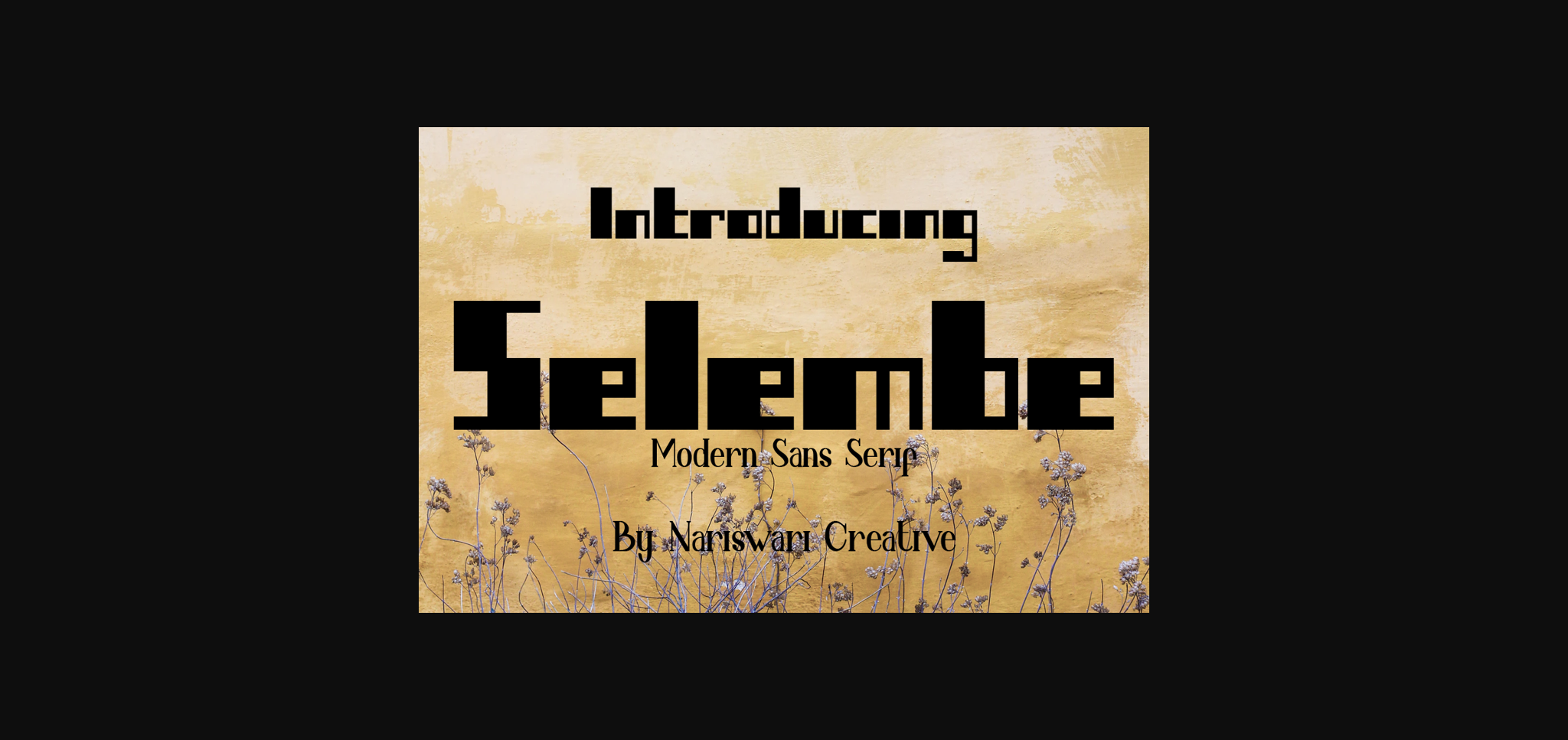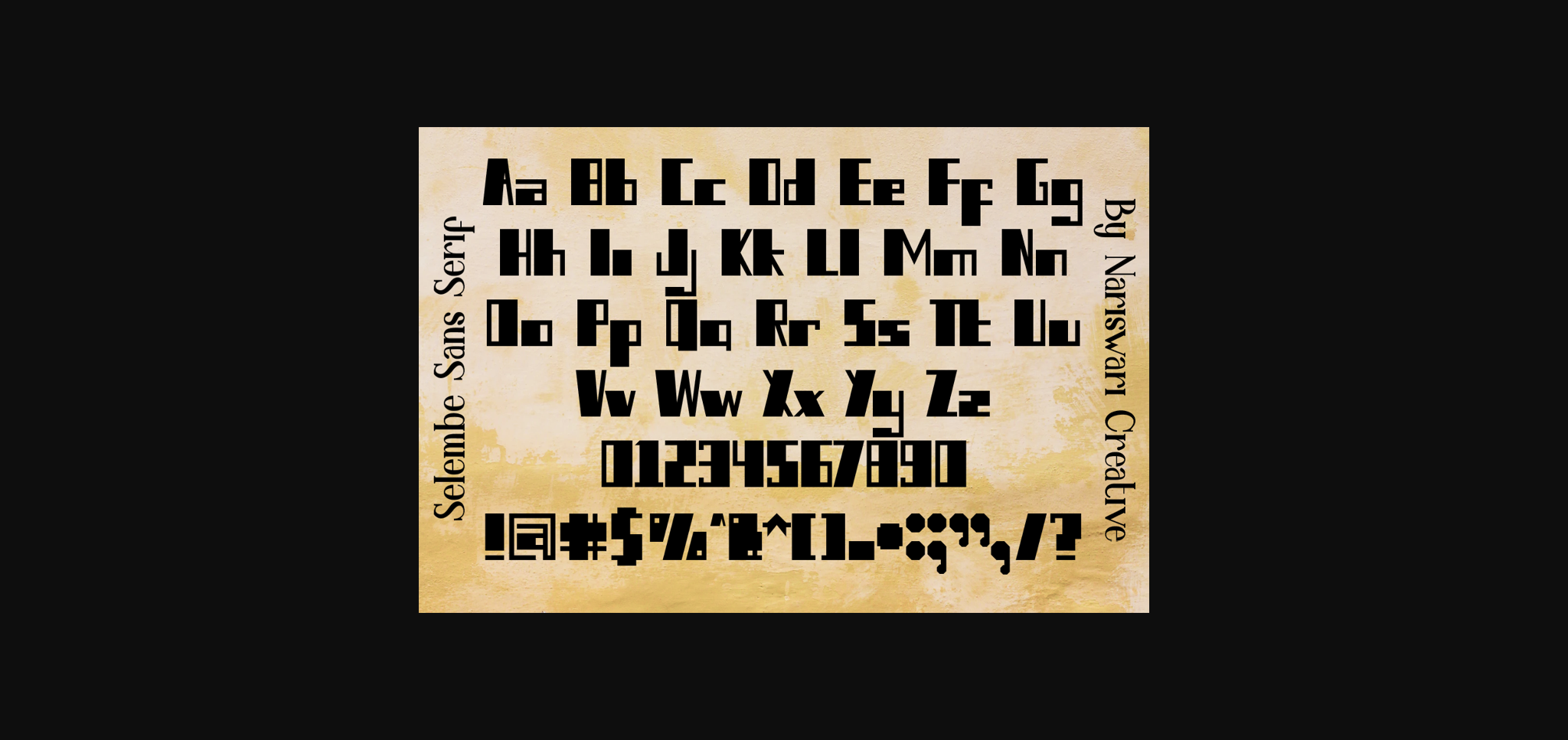
HomeSans Serif FontsSelembe Font Sans Serif Fonts Selembe Font FacebookXPinterestWhatsApp 1 of 5 ... Selembe Font Poster 2... Selembe Font Poster 3... Selembe Font Poster 4... Selembe Font Poster 5... About Selembe Font Selembe is a bold and minimalist sans serif font. Fall in love with it and bring your projects to the highest levels! DOWNLOAD NOW People also explored Place of Business Font My Honey Font Romance Font Night Sunday Font Christmas Uniform Font Fallout Modern Calligraphy Font Marigolds Font Kembara Cinta Bokir Kristie Font 300 0 TagsSelembeSelembe Font Previous articleMoonlite FontNext articleHoodie & Sweater Font LEAVE A REPLY Cancel reply Comment: Please enter your comment! Name:* Please enter your name here Email:* You have entered an incorrect email address! Please enter your email address here Website: Save my name, email, and website in this browser for the next time I comment. Personal Use Free Roland Personal Use Free Read more about this font Dr.Marz Personal Use Free Read more about this font Denisha Personal Use Free Read more about this font Monogram Calligraphy Personal Use Free Read more about this font BLOG Best Fonts for T-Shirt Design – Top 2025 Picks In 2025, t-shirt design has become more than just fashion—it's a form of self-expression. Whether you're... How to Install and Use Fonts on Windows, macOS, and Web Projects Elegant Wedding Invitation Fonts – Handwritten & Script Fonts How to Cut Any Font on Cricut: Convert a Font to SVG (Free)